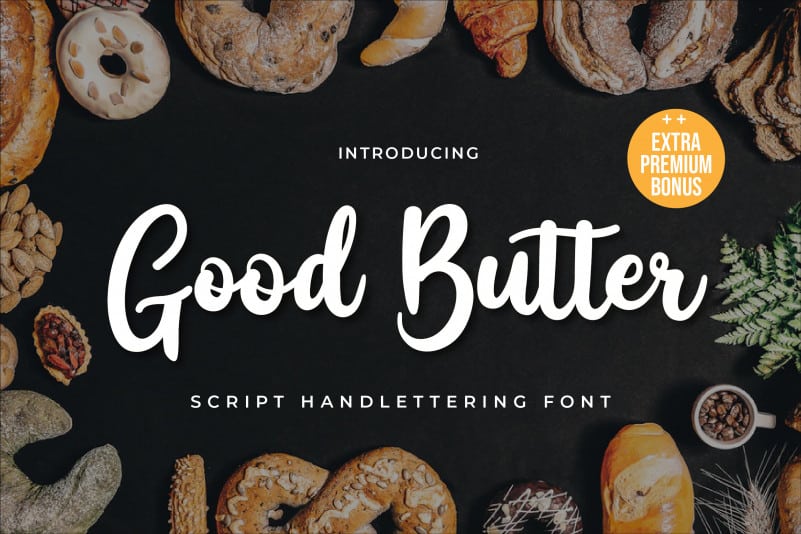
Good Butter Script Font
Good Butter Script Font was made with original hand-drawn strokes, featuring a relaxed and elegant feel.
Good Butter Script Font also offers a beautiful and abstract typographic harmony, which works great in a variety of designs, both formal and informal.